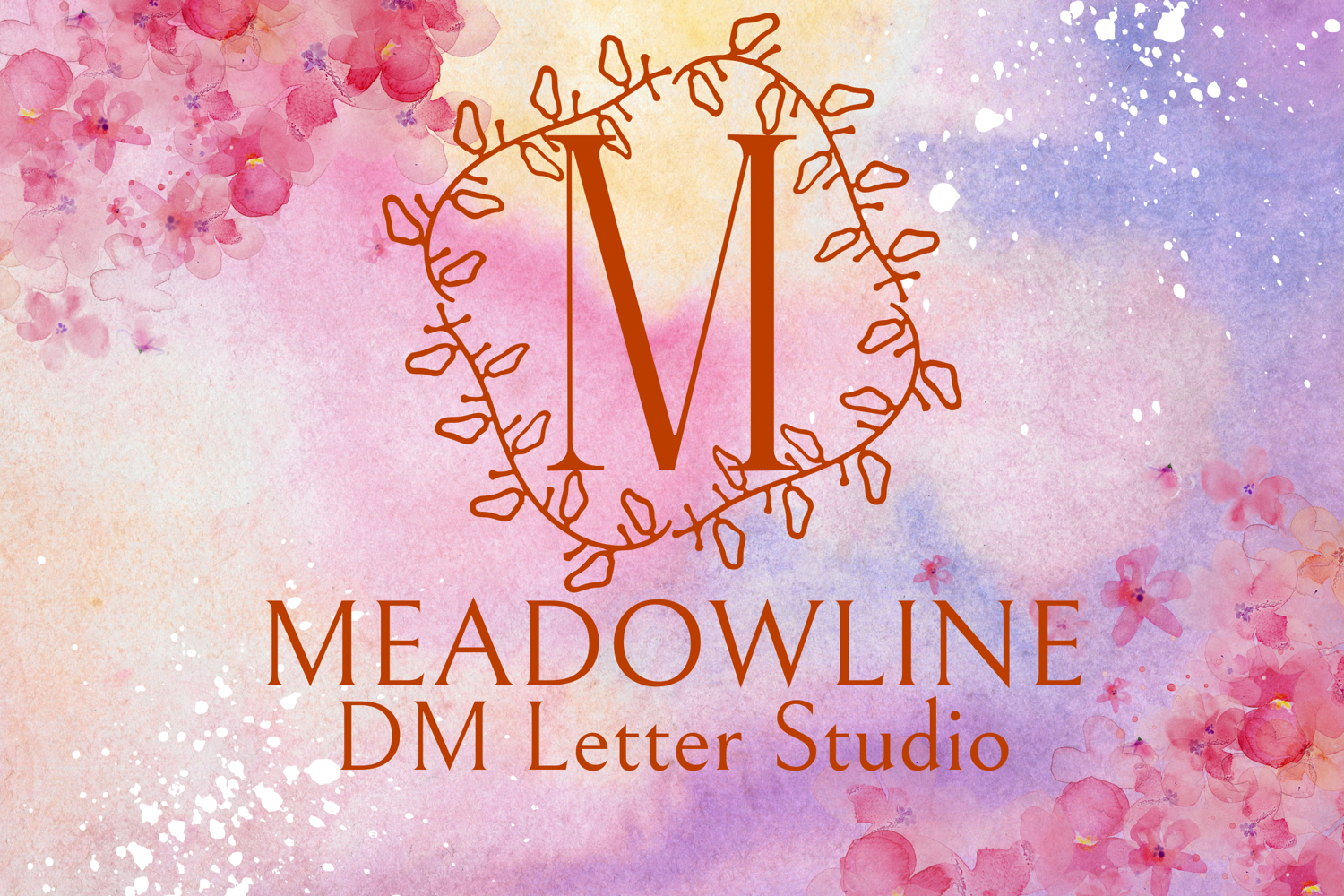
MeadowLine Monogram - Delicate Floral Line Art Monogram Font
MeadowLine Monogram
MeadowLine Monogram – Delicate Floral Line Art Monogram Font
MeadowLine Monogram is a refined serif monogram font featuring elegant line-art floral accents inspired by open meadows and wild blooms. Each uppercase letter is paired with soft, minimalist botanical illustrations, making this typeface ideal for custom initials, wedding crests, feminine branding, and artistic stationery. Its airy, graceful design creates a sense of quiet beauty and natural sophistication.
• Floral Line Art Embellishments: Hand-drawn botanical elements gracefully complement each capital letter.
• Minimalist Serif Base: Clean and timeless serif forms keep the design balanced and modern.
• Customizable and Elegant: Great for monograms, custom logos, invitations, and floral-themed packaging.
• Ideal For: Wedding branding, elegant monograms, Cricut crafts, modern botanical logos, gift tags, and nature-inspired designs.